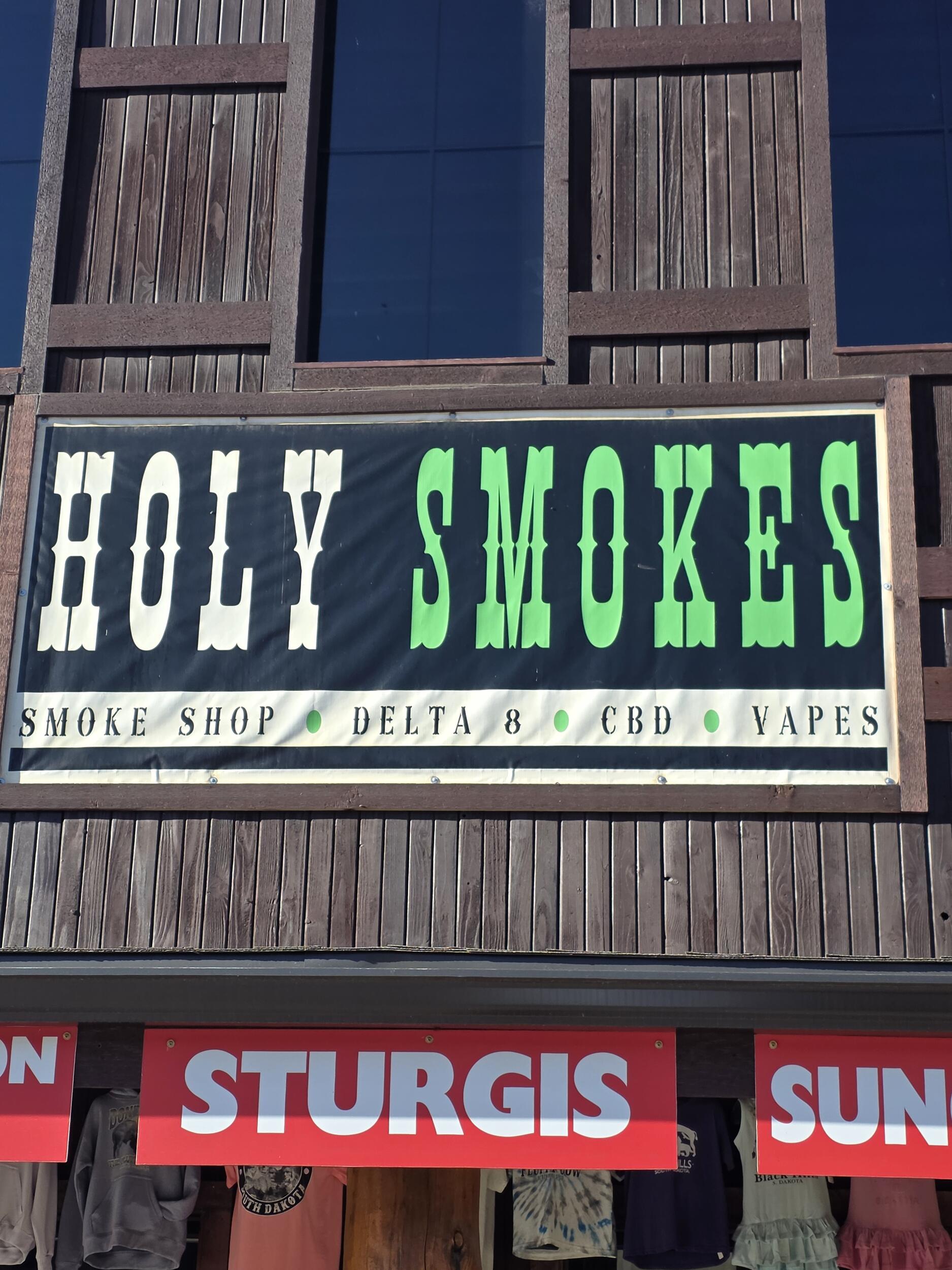
Holy Smokes Banner Footer Font Needed
Thanks in advance if you can help me. The smoke shop called Holy Smokes here in Custer SD needs me to make changes along the footer of a banner they have. At the moment its still on the building and this is the best picture he could get. Previous designer of said banner has flaked and can't be reached. I can probably use Saloon Girl, but was really hoping someone could identify what the original designer actually used.
Awesome, thanks so much. Good call on the artificially condensed - a lot of "designers" around here do that (and a lot of them also do one project and disappear, never to be heard from again). Drives me insane when I have to recreate someone's past project. That's why I really appreciate this forum.